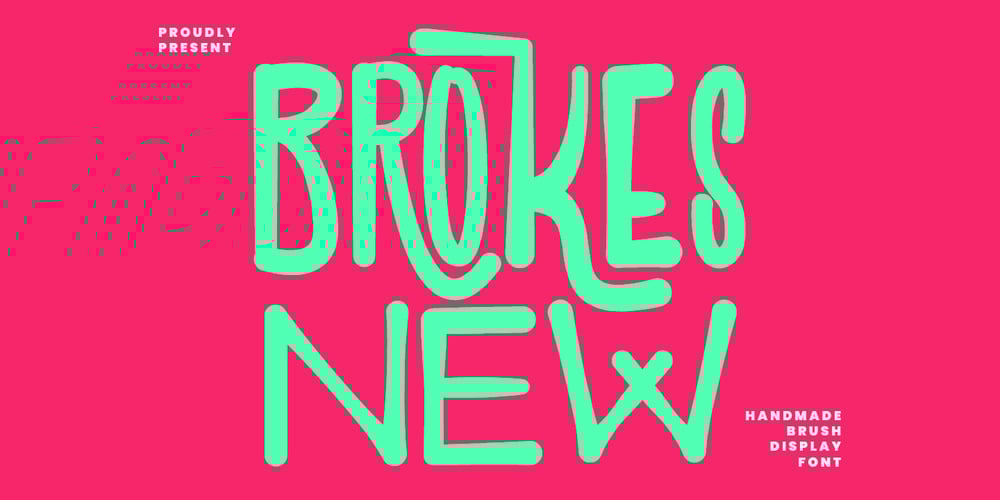
MC Brokes New Font Family was designed by Gilang Maulana and published by Maulana Creative. MC Brokes New contains 1 styles and family package options. Brokes New handmade brush display font, fun character with alternates and ligatures. To give you an extra creative work. Brokes New handmade brush display font support multilingual language.Many Thanks,Maulana Creative